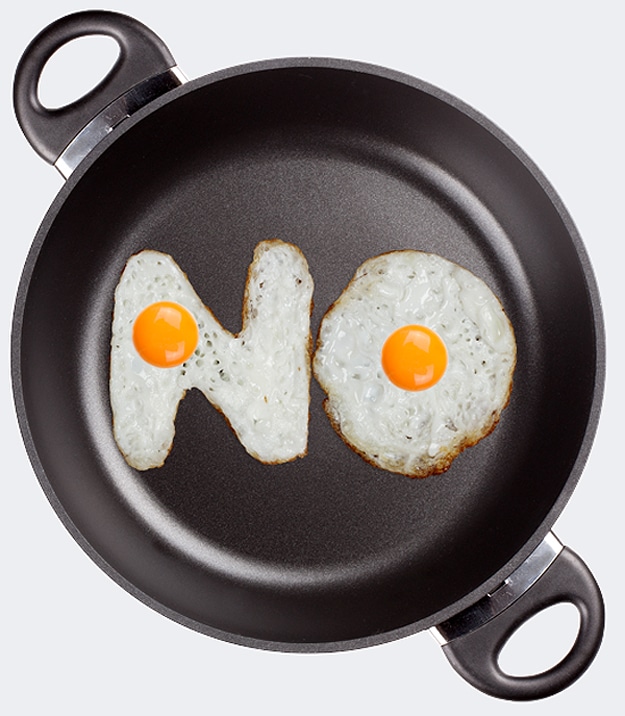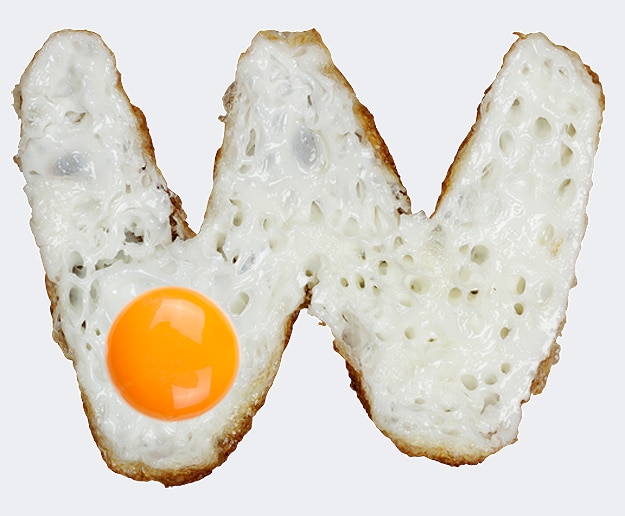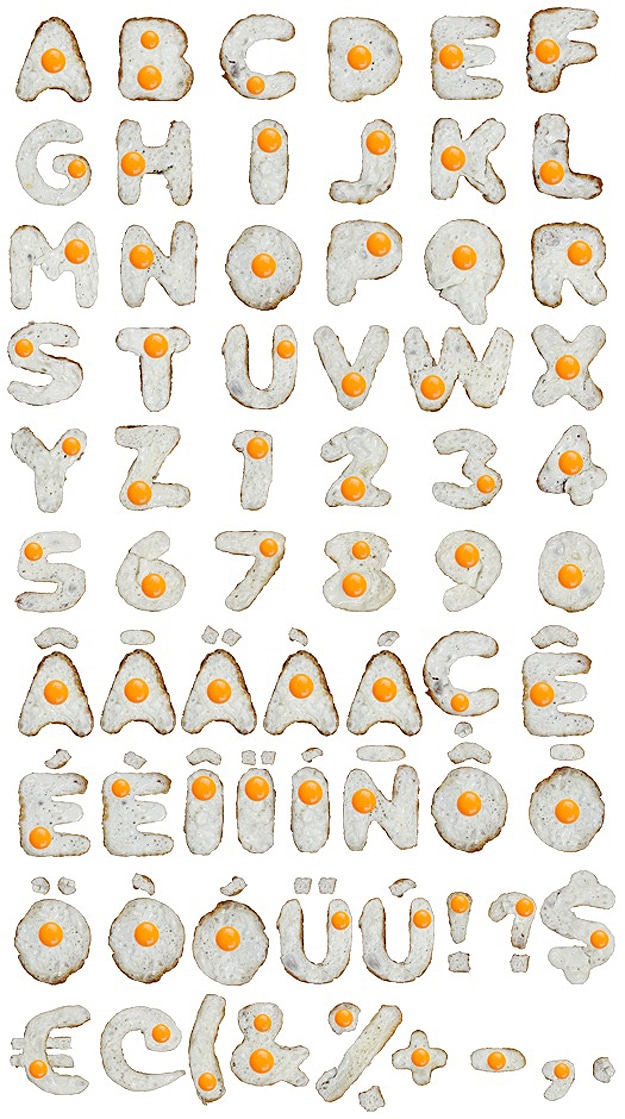
I remember back in the old days when fonts were boring and simple. They pretty much all looked the same, and there wasn’t much inspiration or variety infused into them. Those days are long gone, and now you can find a font to represent just about anything. This particular font caught my attention not so much because of how it looks (although it’s deliciously and creatively put together), but more because of how it was made. As you’ll see, a lot goes into creating a food font.
This is a handmade fried eggs font inspired by the breakfast you ate this morning. It looks almost good enough to eat. According to Handmade Font, making the font version of fried eggs was no easy task. The description states:
“1,000 eggs, 10 pans, 5 burned fingers, 3 hours, 1 bottle of oil and half of a flat smelling like perfect and brand new Eggs font. We are quite confident about the consistency and flavor, but the beautiful plating of the dish is your responsibility!”
It must be a fun job to create fonts, especially fonts made from fried eggs. I’m not sure what someone would use this font for – maybe for a restaurant breakfast menu or for a unique art piece. If you want to buy the Eggs font, it’s for sale over on that link above for $70. I wonder how many Eggs fonts they have to sell to turn a profit. I mean, 1,000 eggs ain’t cheap!
The Fried Eggs Font